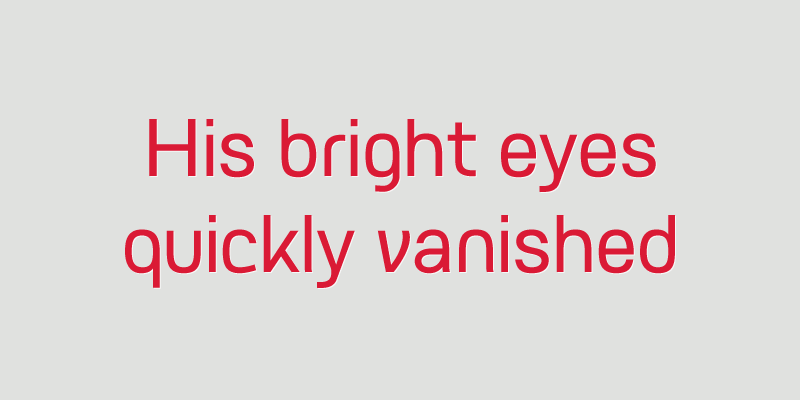
Шрифт FV Granada
This is a contemporary neo-grotesque font that comes in three weights (of which the regular weight is free). It's named after the beautiful city I live for two years now.